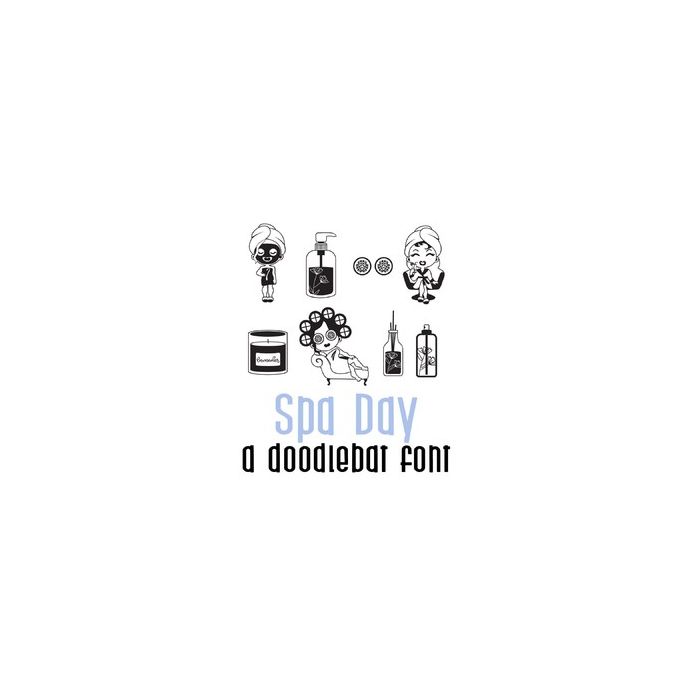
spa day doodlebat font
This doodlebat features 26 beauty and makeup themed imagery, perfect for parties, Mother's day, gifts, crafts, decor, scrap book pages, planner stickers and more!